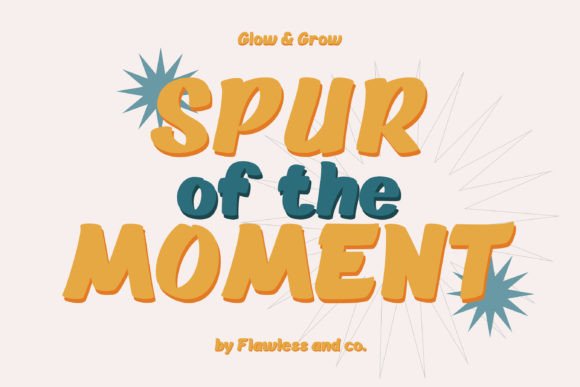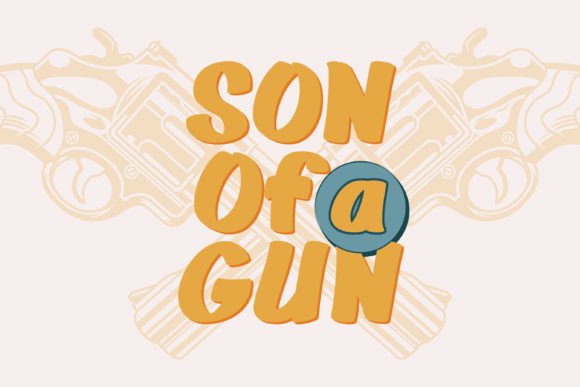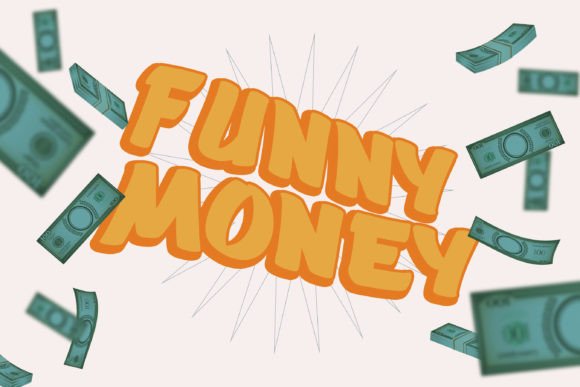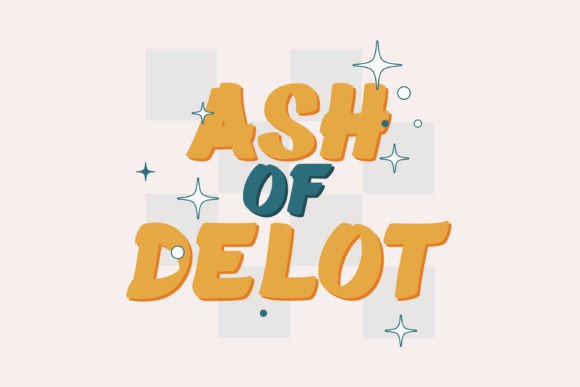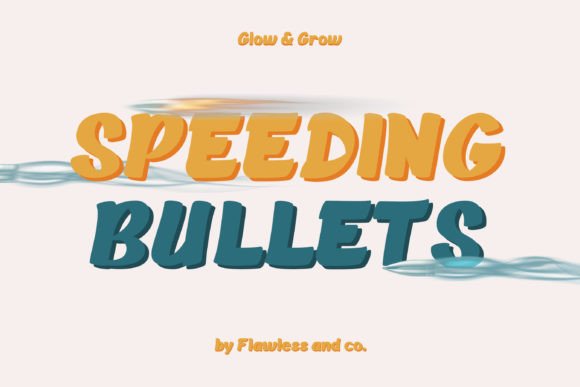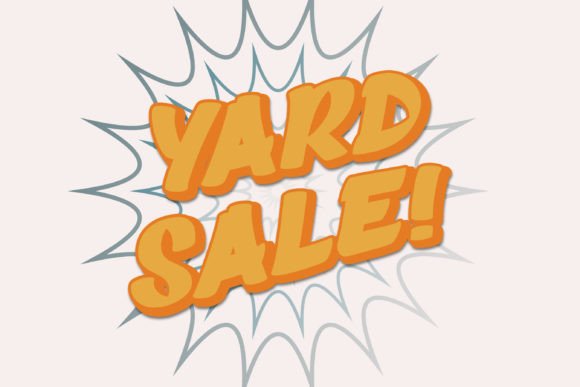
Unlock the Magic of Your Designs with Grow and Glow Font
Have you ever found yourself staring at a blank canvas, waiting for inspiration to strike? You’re not alone. For designers, those moments of creative block can be the most frustrating – and the most exciting. It’s in these moments that we remember why we fell in love with design in the first place: to bring imagination to life and make the ordinary, extraordinary.
Enter Grow and Glow Font, a display font designed to inject a dash of whimsy and wonder into your projects. With its charming characters and vibrant energy, Grow and Glow Font is the perfect choice for designers who crave a touch of creative flair. Whether you’re working on a children’s book, a greeting card, or a marketing campaign, Grow and Glow Font is sure to add a spark to your designs.
Grow and Glow Font Key Features
- Font Style: A unique, hand-drawn design with a playful and modern aesthetic.
- Unique Characteristics: Features a subtle glow effect that adds a touch of sophistication and elegance to any text.
Grow and Glow Font Review
I recently had the chance to work with the “Grow and Glow Font” and I must say it has its unique charm. Here are some things that really work well: ✨
- Unique aesthetic: The font has a distinct, whimsical feel that can add a touch of personality to any project.
- Customizable: The font comes with various customizable options, making it easy to adjust the look and feel to suit your needs.
- High-quality: The font is well-designed and has a high level of detail, making it suitable for use in a variety of contexts.
However, I did encounter a few limitations: ⚠️
- Limited language support: The font may not be suitable for use in languages that require more complex character sets.
- Not ideal for small text: The font’s unique design can make it difficult to read when used in small text sizes.
Overall, I think the “Grow and Glow Font” is a solid choice for designers looking to add some personality to their work. While it may have some limitations, its unique aesthetic and customizable options make it a great option for the right project.
“Grow and Glow Font” is perfect for:
- Creating eye-catching
Alternatives to Grow and Glow Font
The Great Vibes Font is a beautiful, handwritten font that is perfect for creating a relaxed and casual atmosphere. It is ideal for use in social media graphics, blog posts, and other creative content where a friendly and approachable tone is desired. Compared to Grow and Glow Font, Great Vibes Font has a more laid-back feel and is better suited for everyday use, whereas Grow and Glow Font is more energetic and attention-grabbing.
The Pacifico Font is a elegant and sophisticated script font that is perfect for use in high-end branding, luxury packaging, and other premium designs. It is ideal for creating a sense of refinement and sophistication, and is particularly well-suited for use in the fashion and beauty industries. Compared to Grow and Glow Font, Pacifico Font is more polished and refined, with a focus on elegance and sophistication rather than energy and excitement.
The Alex Brush Font is a elegant and refined script font that is perfect for use in creative and artistic designs. It is ideal for creating a sense of whimsy and playfulness, and is particularly well-suited for use in children’s products, greeting cards, and other creative content. Compared to Grow and Glow Font, Alex Brush Font is more delicate and refined, with a focus on subtlety and nuance rather than boldness and energy.